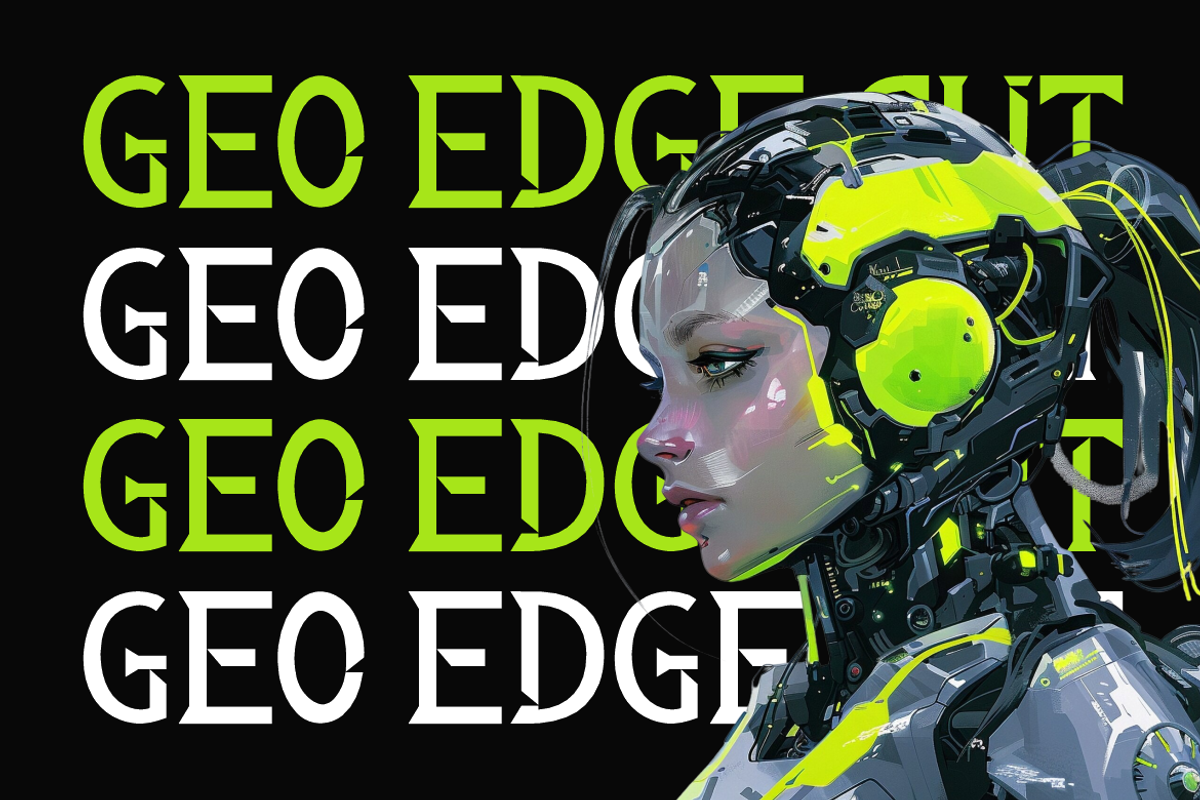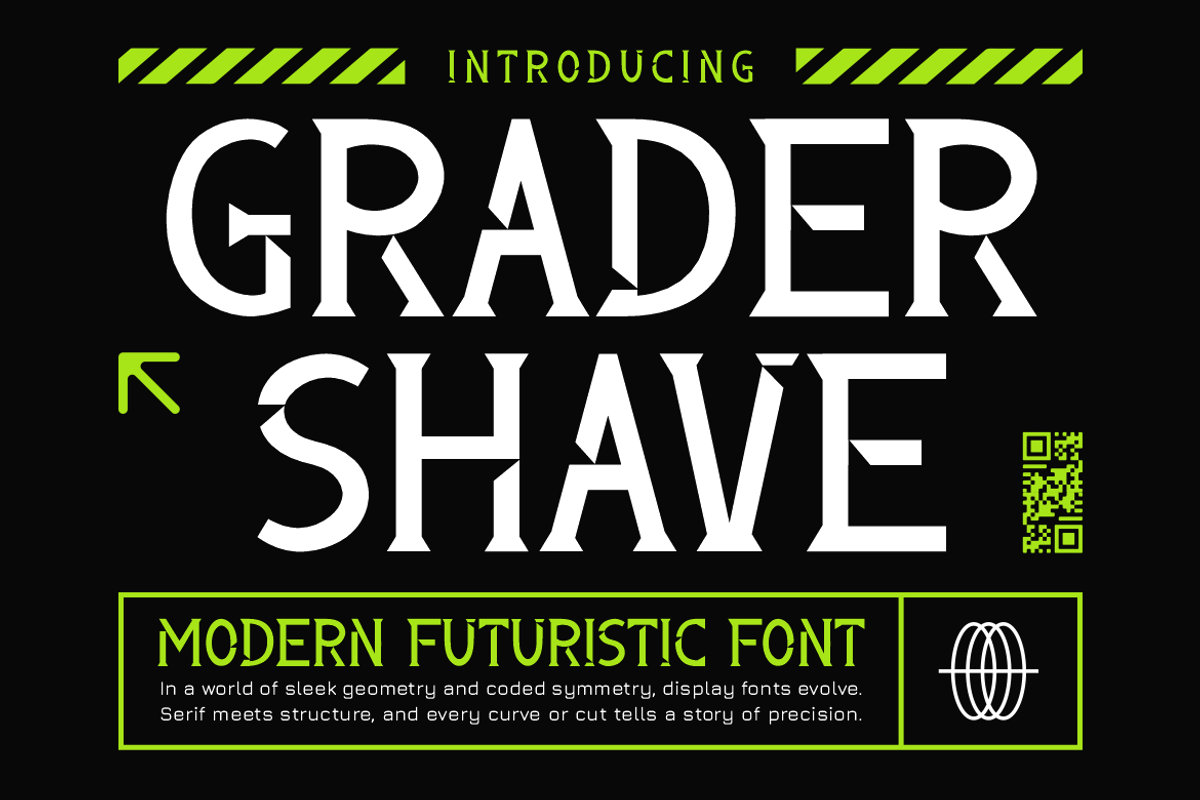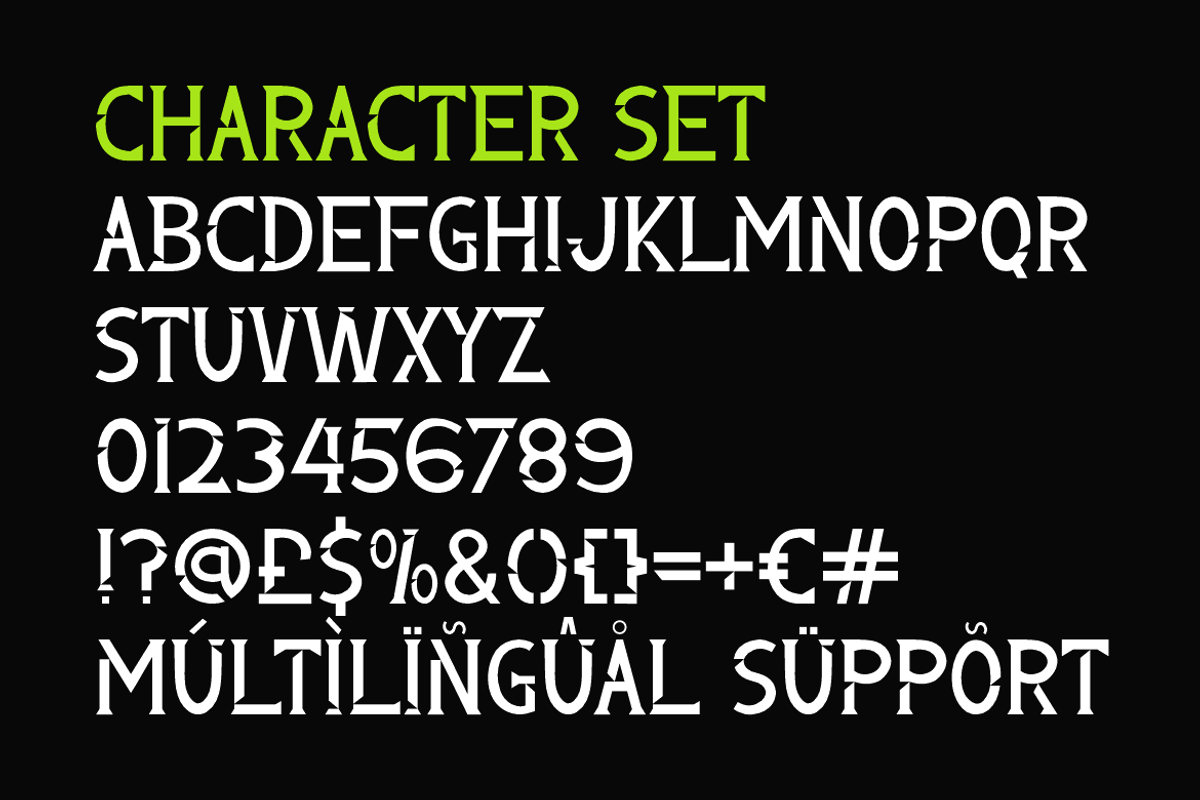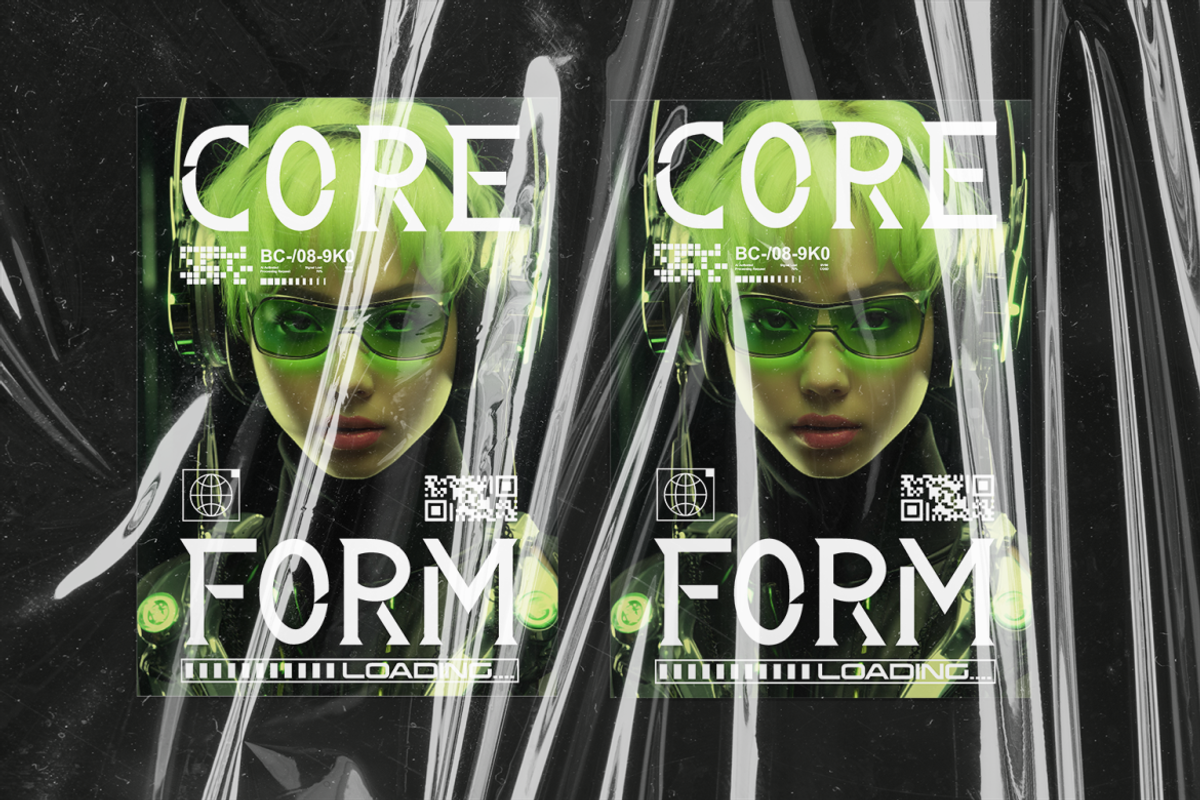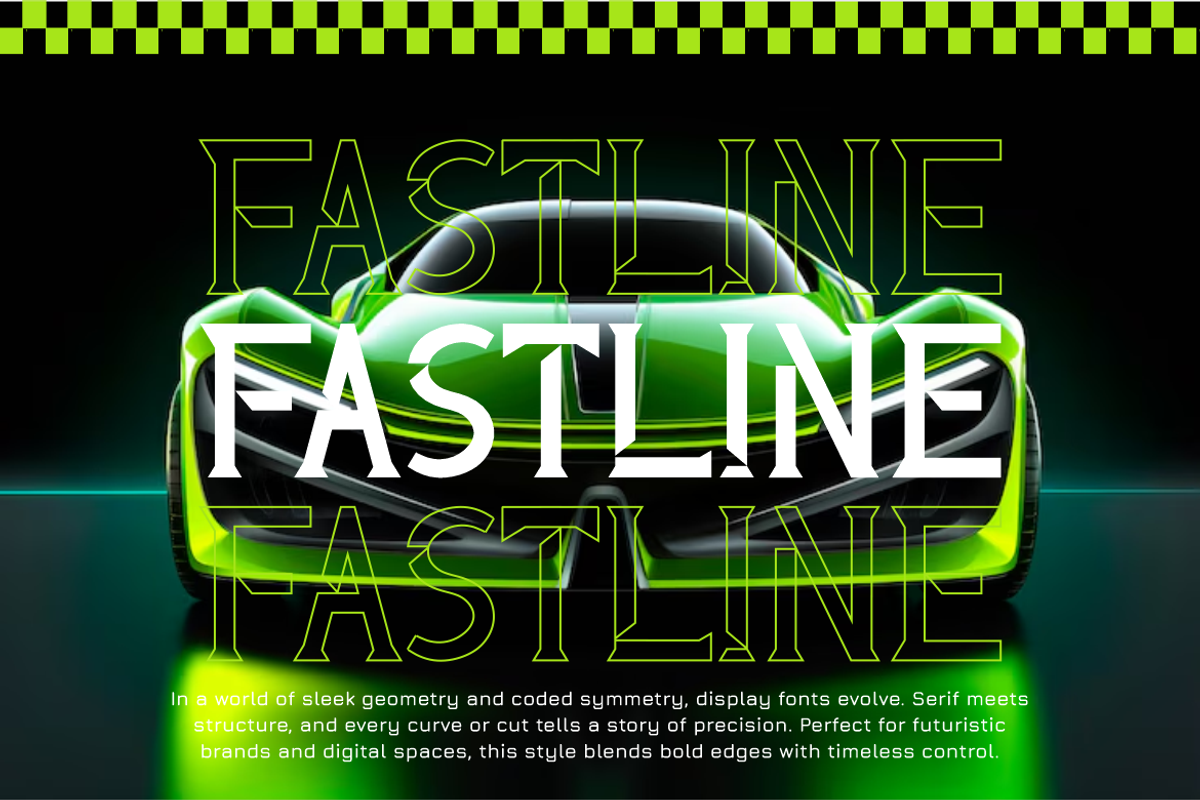
Grader Shave Modern Futuristic Font
Grader Shave is a modern futuristic font that redefines serif typography with sharp geometry and ultra-clean cuts. Each character is crafted with deliberate structure, blending classical serif roots with a progressive sci-fi edge. The precision of its terminals, alternating line weights, and coded symmetry make it perfect for modern tech projects, esports branding, and digital platforms seeking innovation through visual identity. Bold yet readable, Grader Shave’s dynamic letterforms project strength, clarity, and futuristic sophistication.
This typeface is ideal for posters, logos, packaging, editorial headlines, cyberpunk designs, game titles, and forward-thinking advertising. The font provides uppercase letters, numerals, punctuation, and multilingual support—making it versatile for global creative campaigns. Whether you're branding an esports team or designing promotional visuals for a sci-fi film, Grader Shave offers a compelling type solution that’s both sleek and memorable.